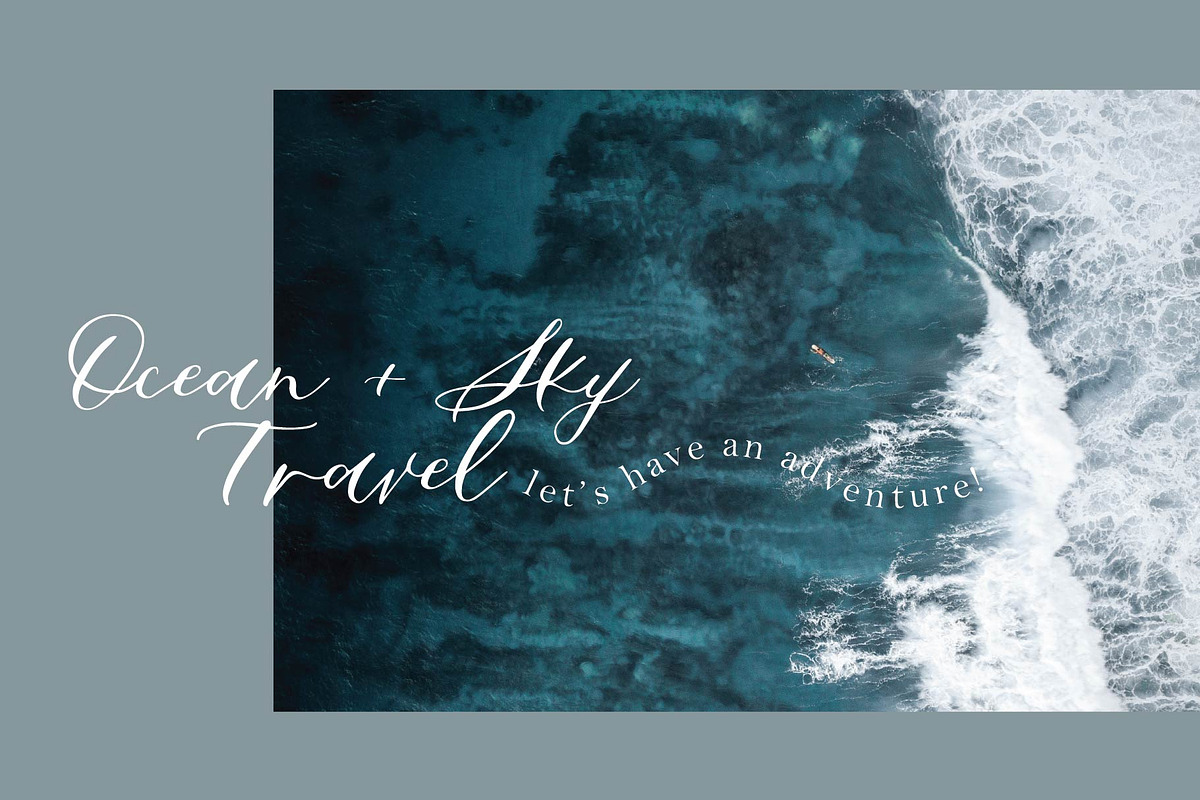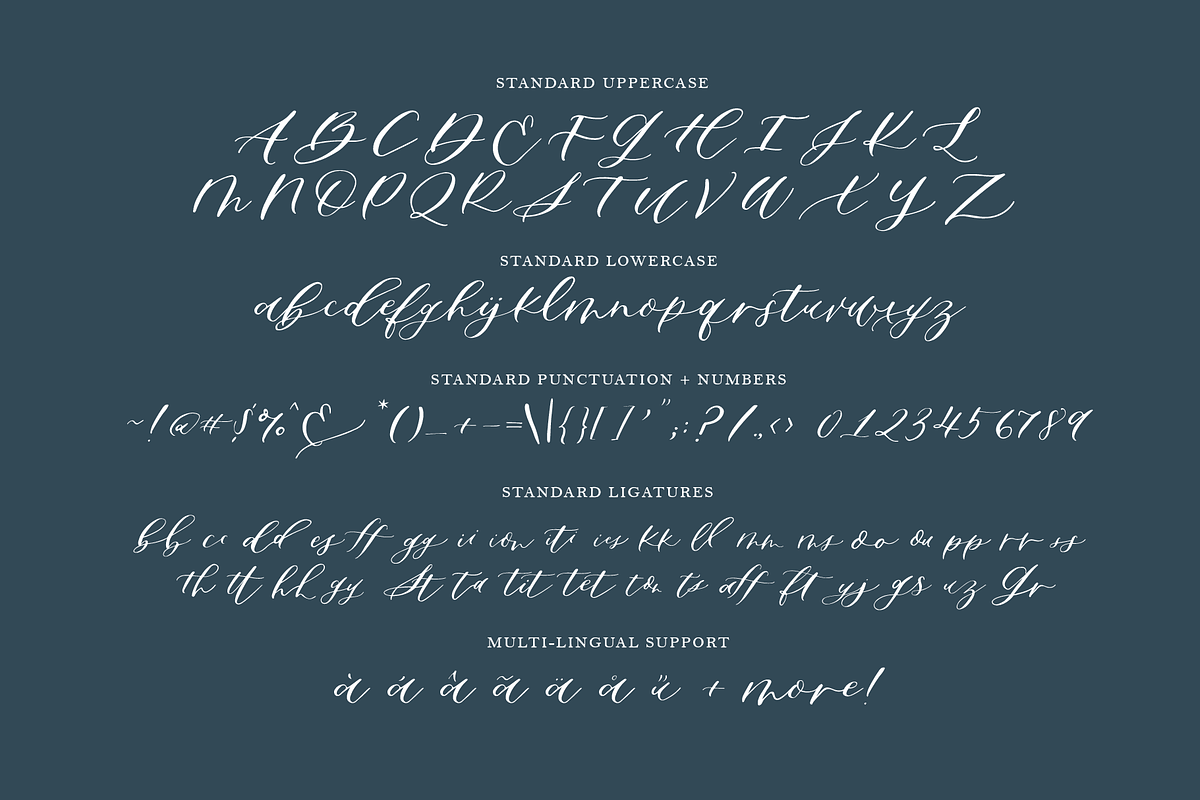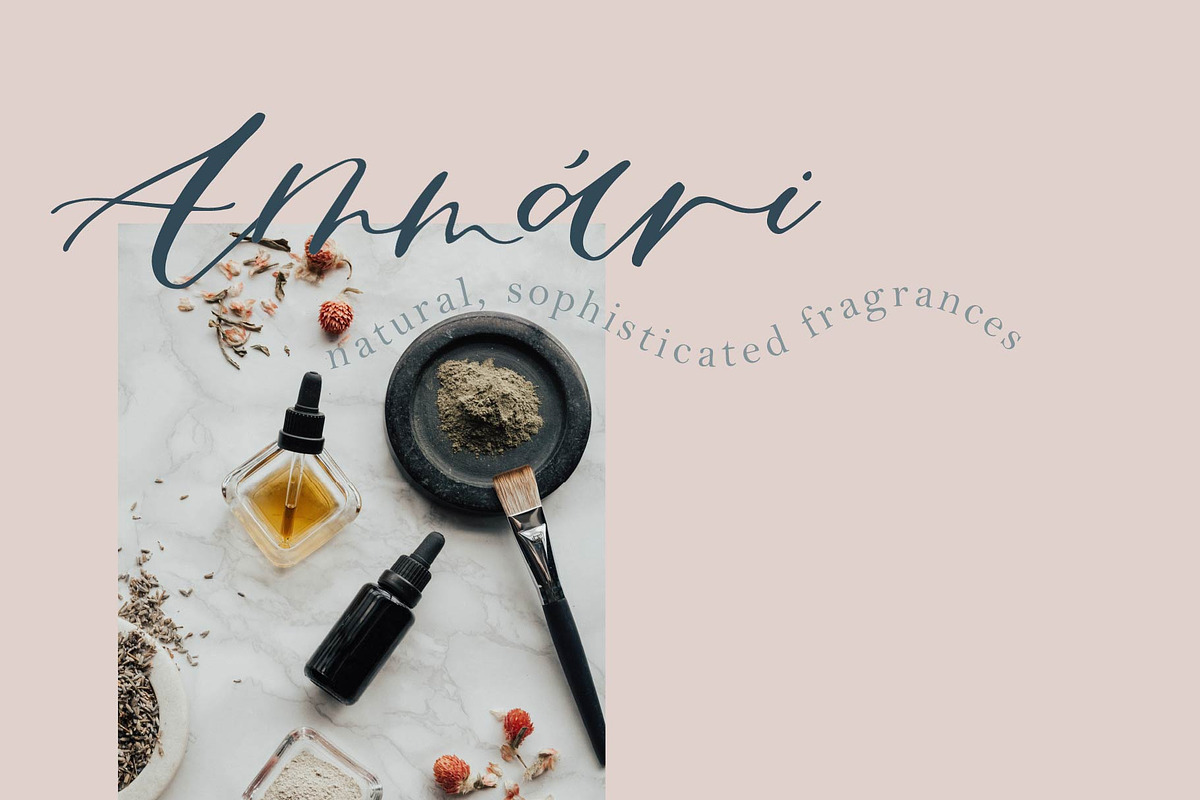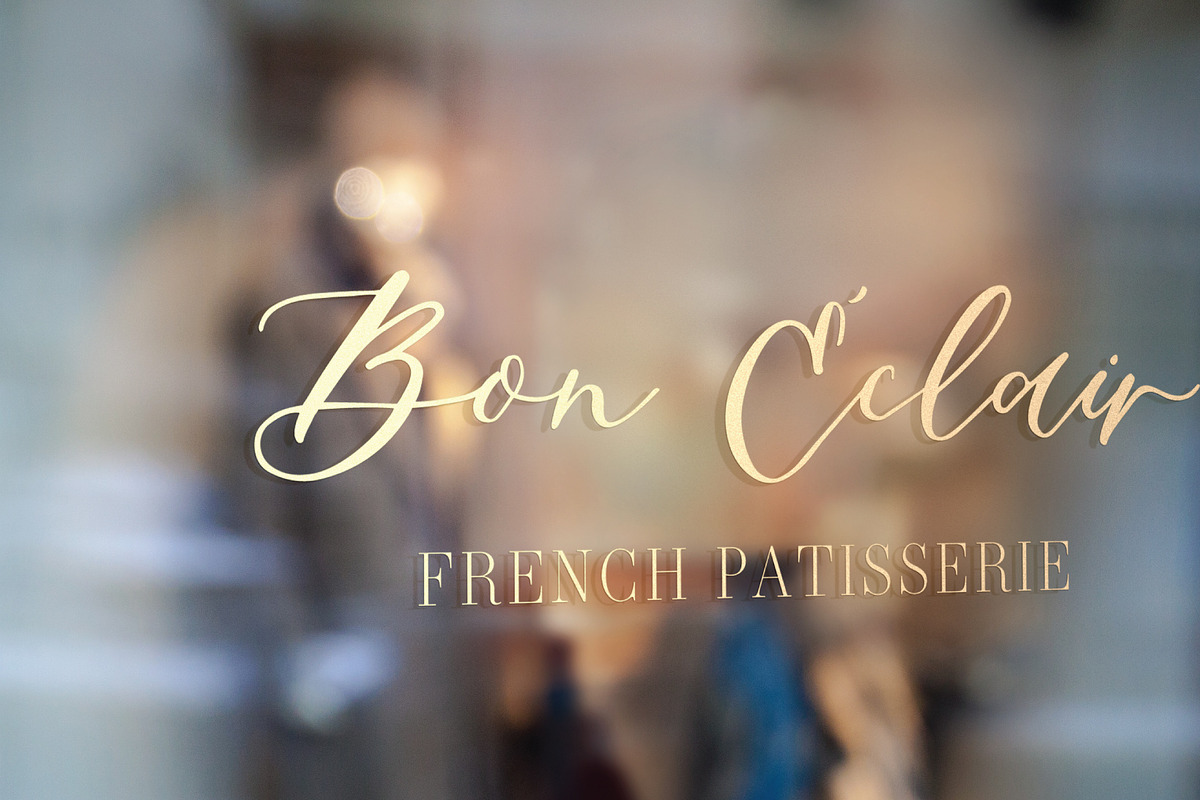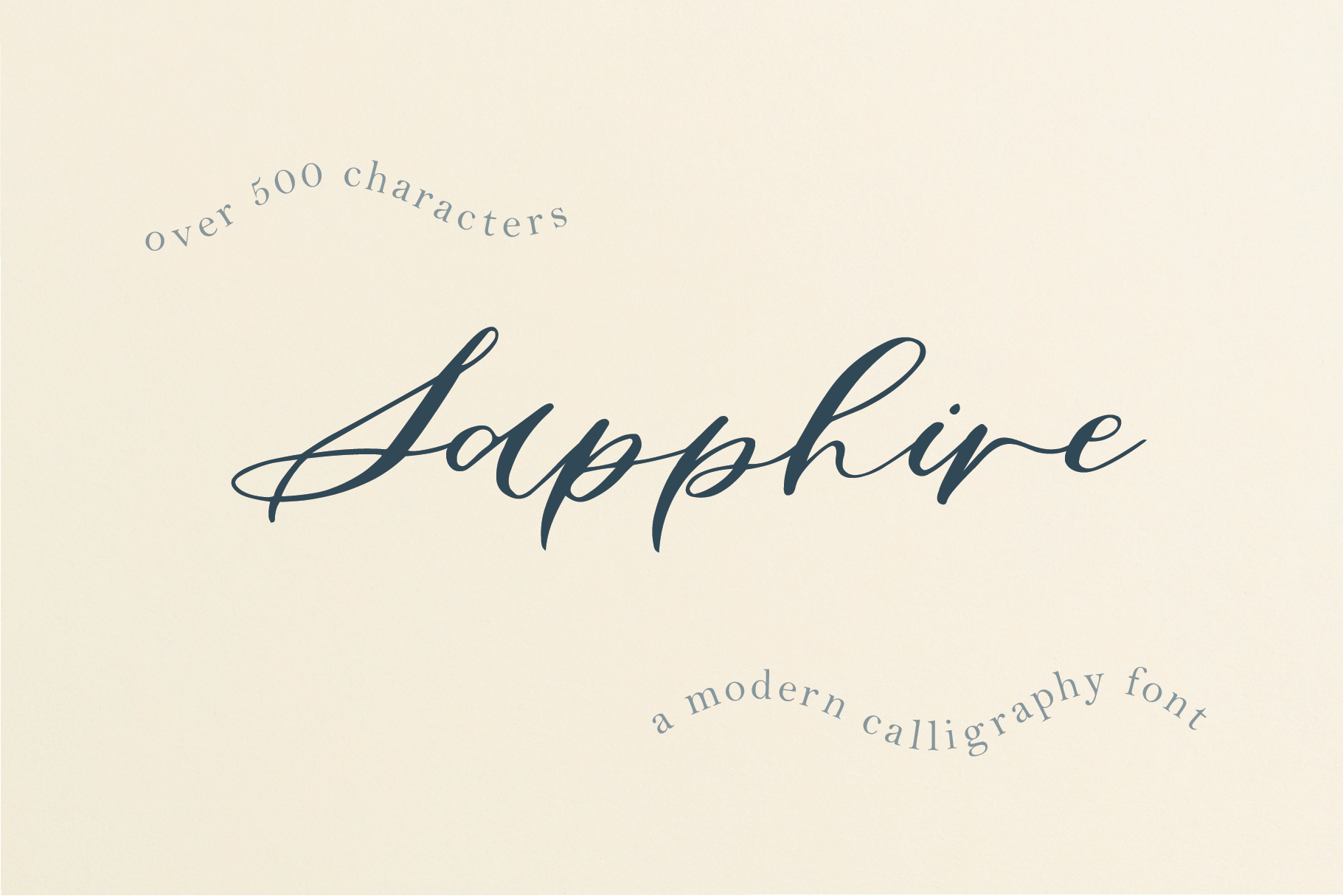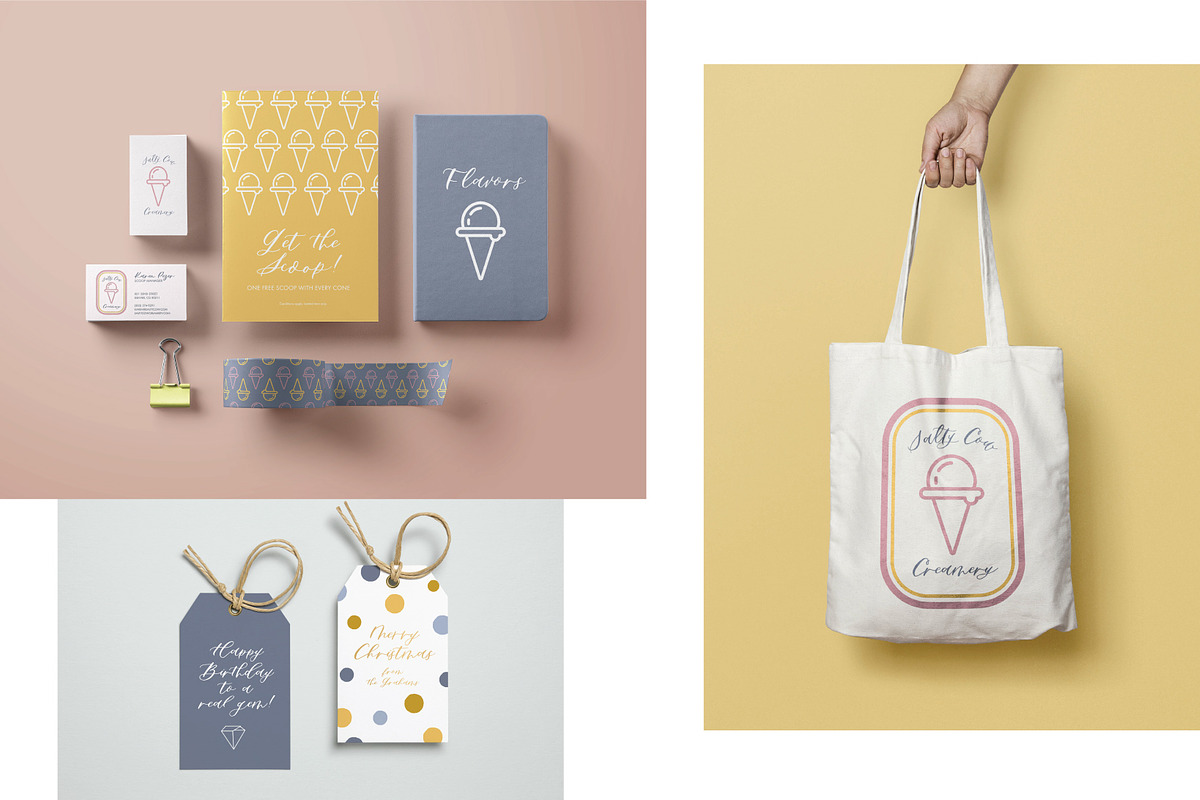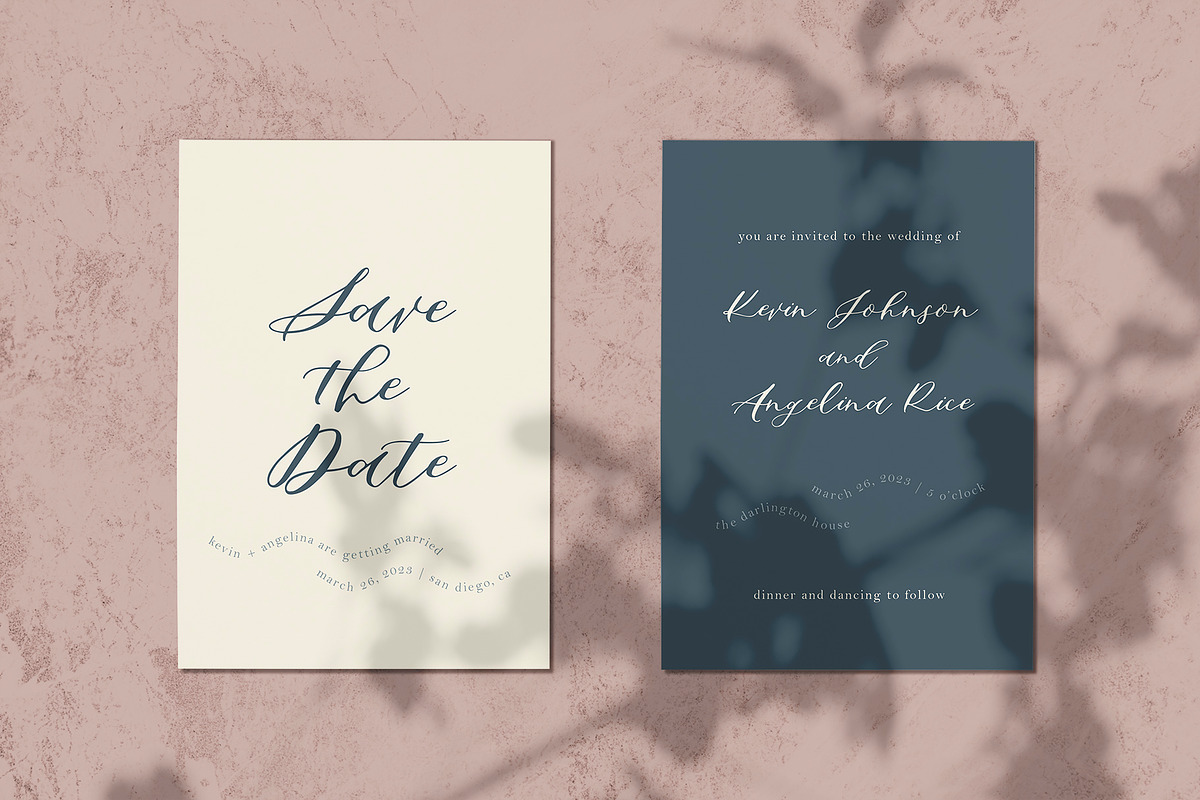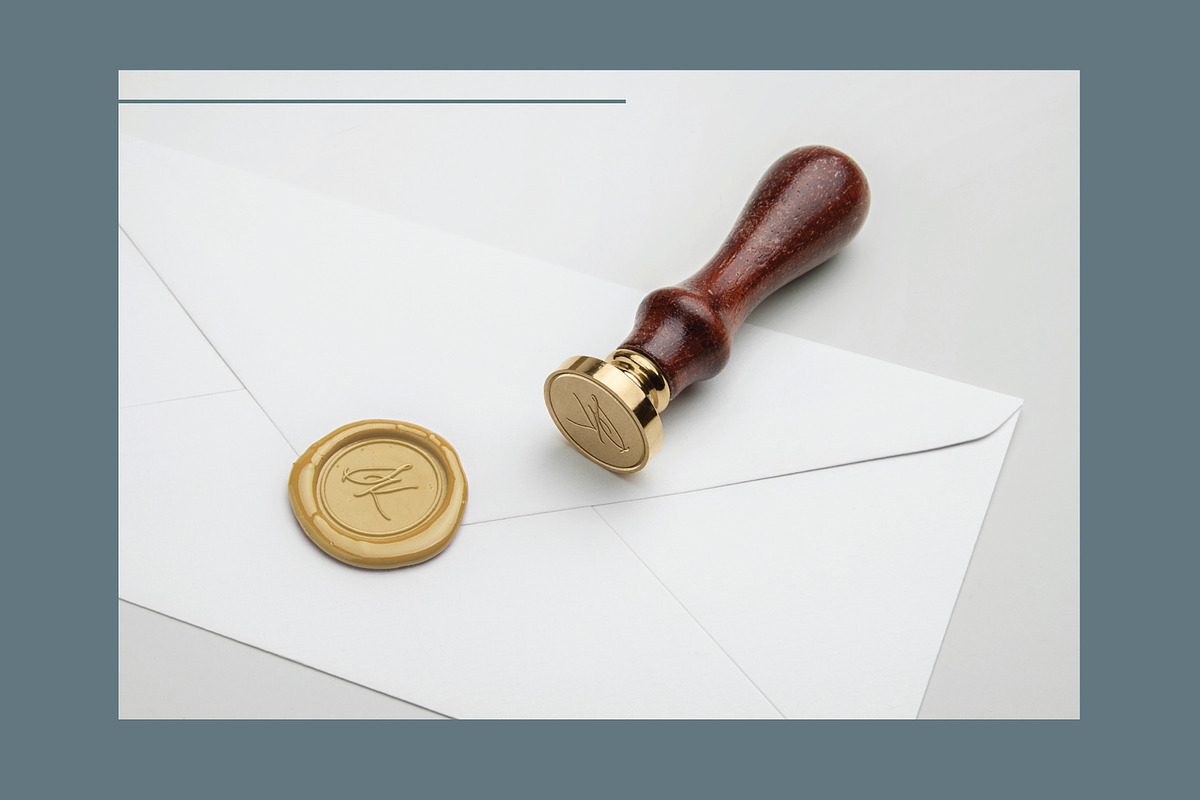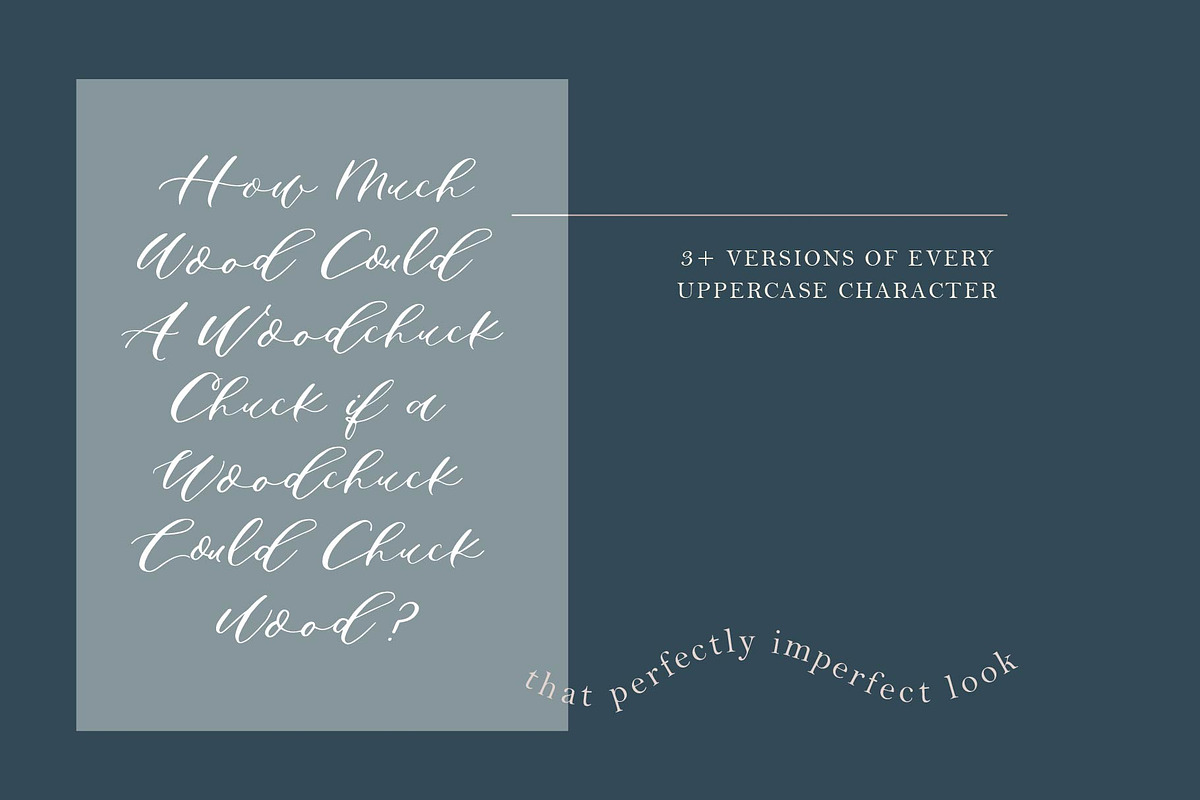
Sapphire Script Calligraphy Font
Sapphire Script is a hand-lettered modern calligraphy font based on the signature script of Design by Laney. Made with wedding invitations in mind, this font with over 500 playful, romantic characters is perfect for branding, stationery, packaging, social media templates, magazine layouts, artist prints, and more!
With 3 or more characters for each uppercase letter and 35 stunning standard ligatures, you'll be able to create that perfectly imperfect calligraphy style.
Sapphire Script contains over 500 unique, coded features for a realistic, handwritten look: 35 standard ligatures, full Western European language support, over 100 stylistic alternates, ordinals (1st, 2nd, 3rd, etc.), 2 alternate number sets including 1-10 Roman Numerals, and a few word glyphs (for, to, from, and).
Sapphire Script was named for the street where Design by Laney began, and where I moved in downstairs from my future husband!